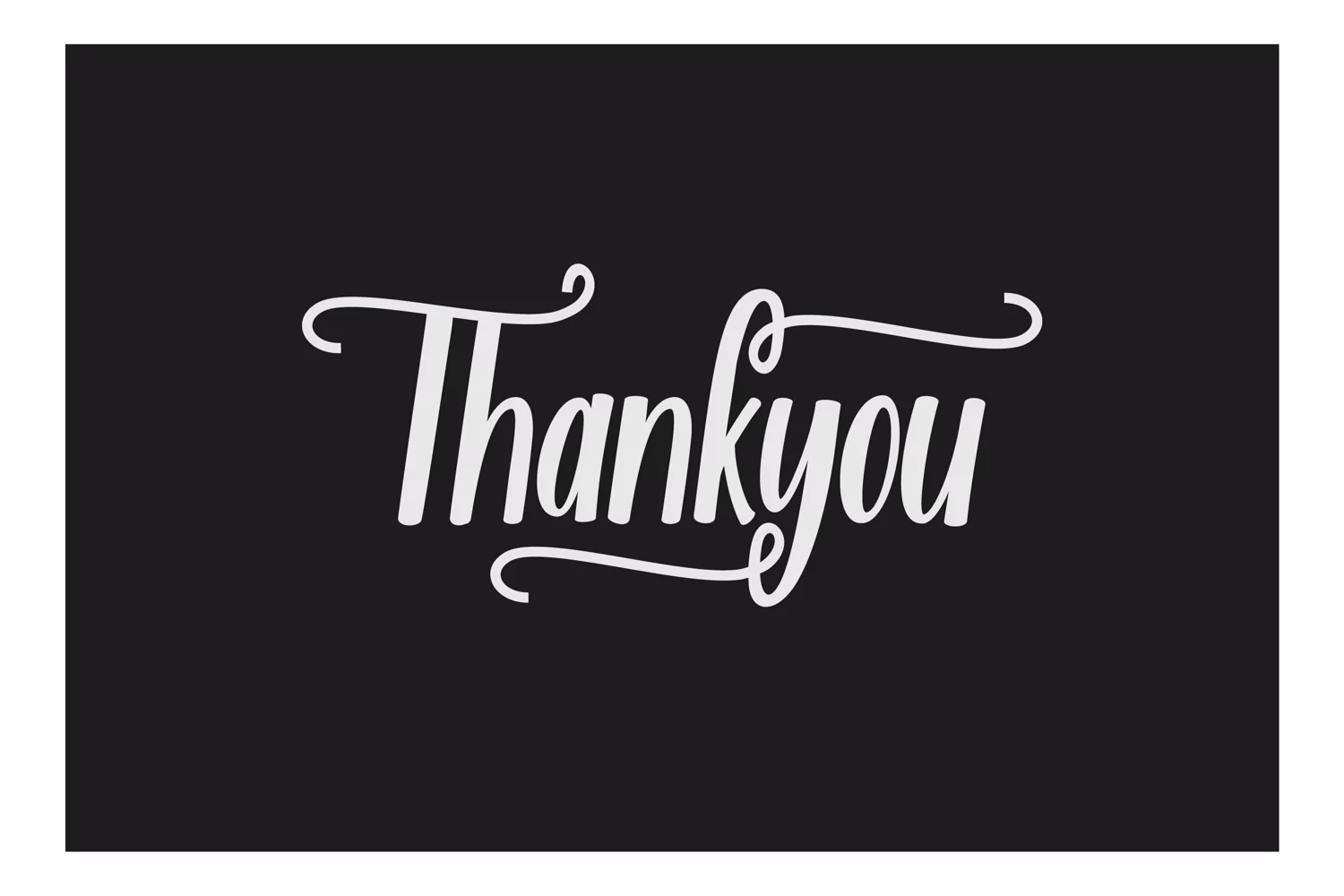
A playful, decorative valentines day script font that comes with a set of uppercase, lowercase as well as flourished uppercase and lowercase alternates.
Perfect for designing invitations, logos, branding, packaging as well as cuttable designs.